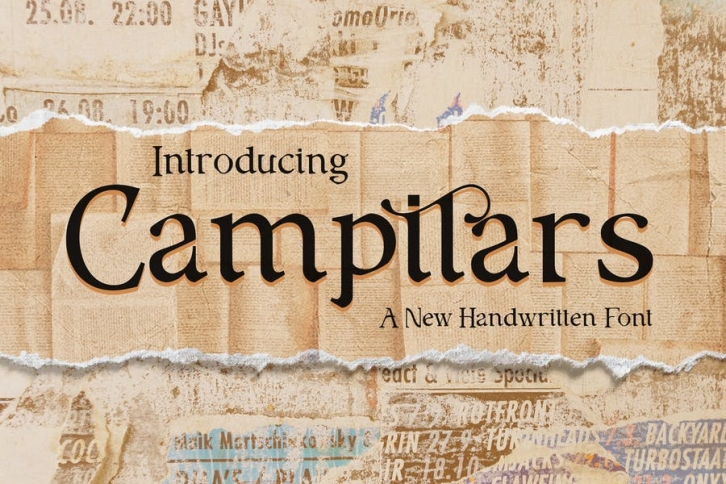
Campilars is Handwritten Serif font from Drizy studio. Offering all the basic styles you will need for a successful project.
Campilars Features:
Uppercase & Lowercase Numeral & Punctuation Multilingual Ligatures